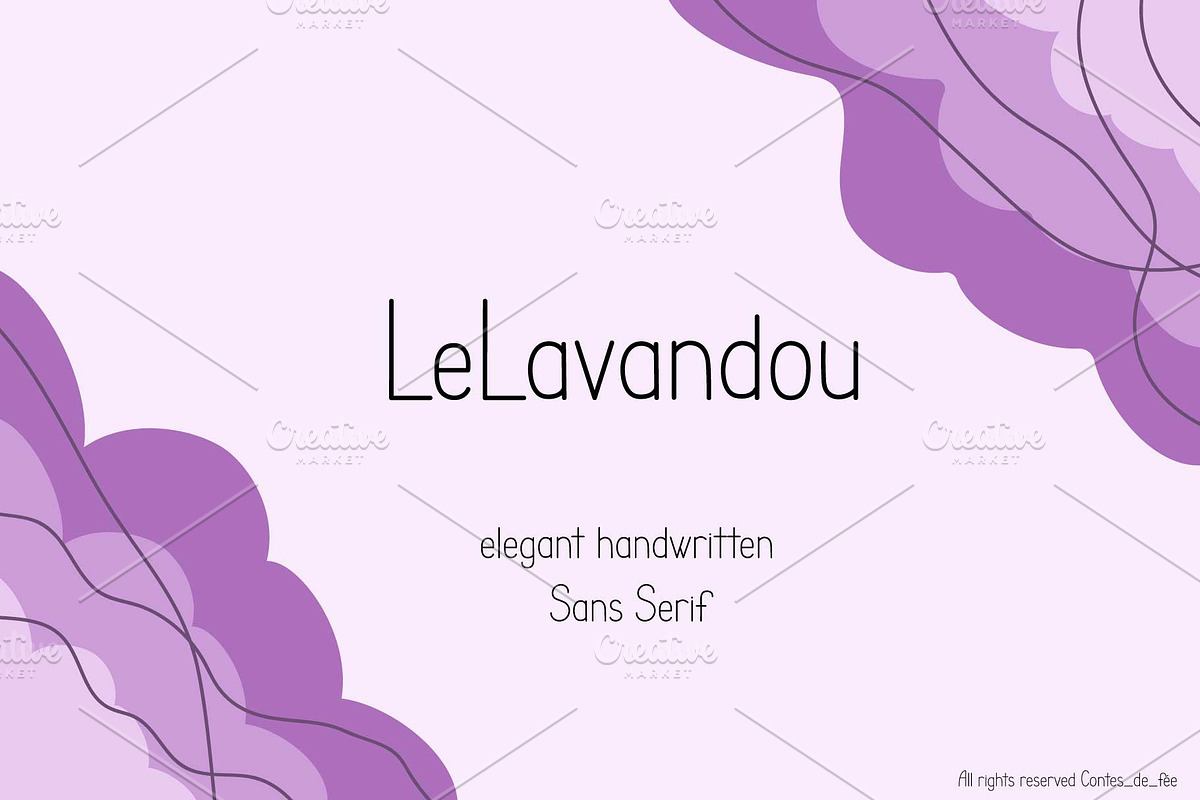
Bring a touch of handcrafted charm to your designs with LeLavandou Hand Drawn Sans Serif Font Free Download. This unique typeface blends the simplicity of a sans serif with the warmth and personality of hand-drawn lettering, making it perfect for branding, packaging, lifestyle blogs, and artisan product labels.
LeLavandou’s slightly irregular lines and natural feel give it a friendly, approachable look while still maintaining clarity and versatility. It's great for designers who want to add a human touch to clean layouts. The font includes uppercase and lowercase letters, numbers, and basic punctuation—ideal for testing in a variety of creative concepts.